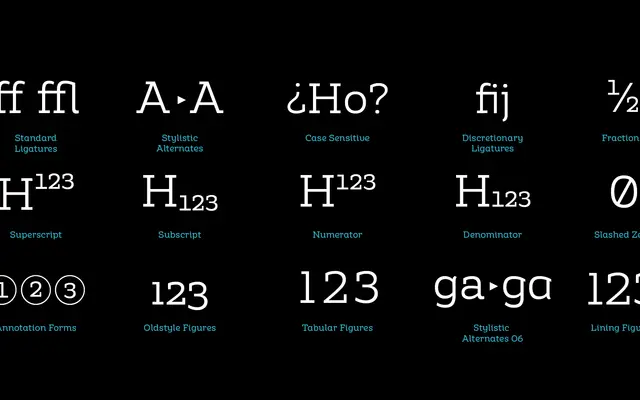
Amazing Slab
Zetafonts · Francesco Canovaro, Mario De Libero, Sofia Bandini, Andrea Tartarelli · 2021
A humanist slab serif grown out of the Amazing Grotesk family, pairing low-contrast egyptian serifs with open, friendly letterforms across 20 styles including four inline display weights.
Developed by Francesco Canovaro and Andrea Tartarelli as a slab companion to Cosimo Lorenzo Pancini's Amazing Grotesk, the design draws its heavier weights from lettering Canovaro originally drew for the StartupItalia logo. The inline variants, drawn by Mario De Libero, extend the family's reach into bold signage, logo work and editorial titling. All 20 styles include true italics, over 900 glyphs, and coverage of 211 languages across Latin, Greek and Cyrillic scripts, with a variable font available in the full package.
An egyptian-style slab serif with low contrast and the curved endings and open apertures of humanist sans-serifs, making it a humanist slab rather than a mechanical or geometric egyptian.